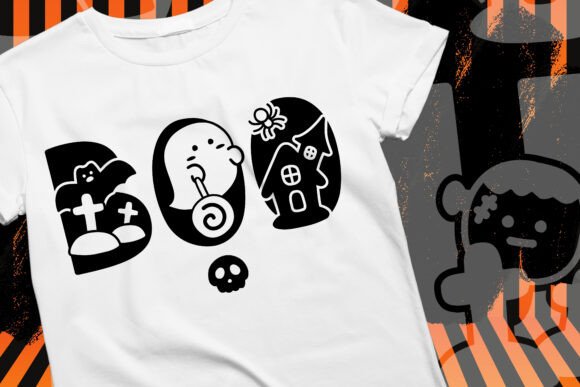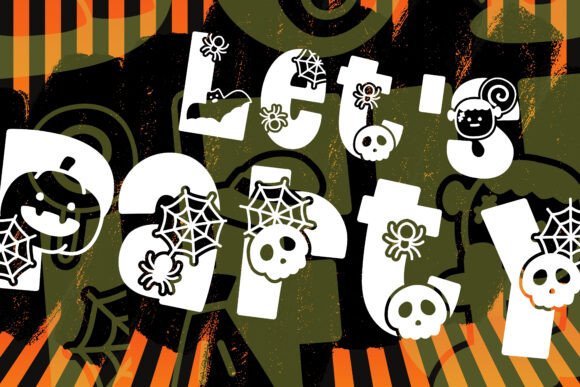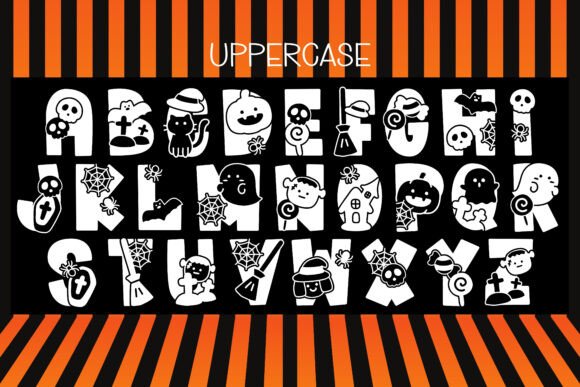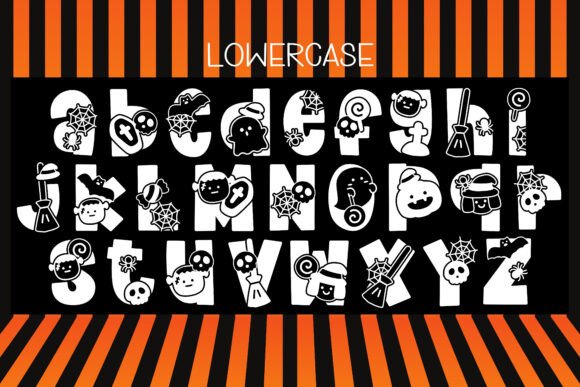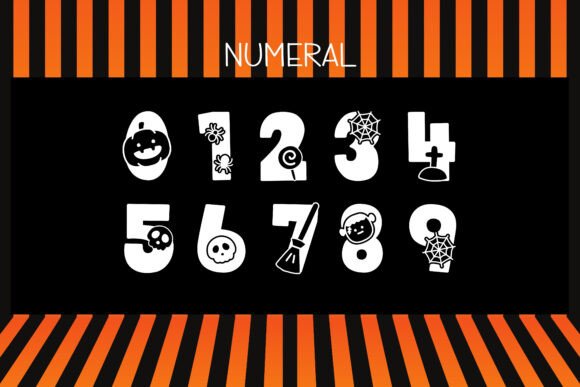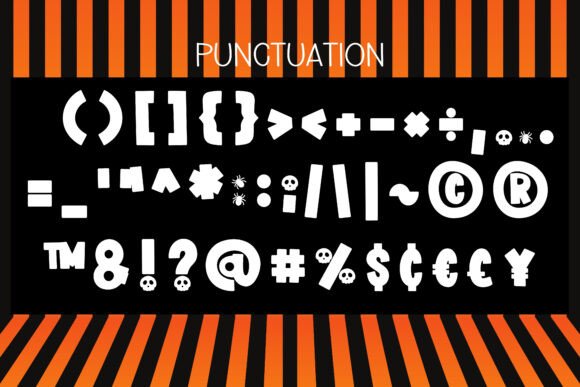
Introduction to Missy Witch Font
Have you ever been rummaging through your design resources, searching for the perfect font to add a touch of magic to your project? For designers, finding the right font can be a game-changer, and that’s where the adorable Missy Witch Font comes in. This enchanting font is designed to bring a spooky and playful vibe to your creative projects, making it perfect for back to school designs, Halloween party decorations, and more.
With its high-quality design and transparent background, the Missy Witch Font is a valuable addition to any designer’s toolkit. Whether you’re working on a free download project or a paid design, this font is sure to add a fun and creative touch. Let’s dive into the world of Missy Witch Font and explore its many possibilities.
Key Features of Missy Witch Font
- High-quality design: The Missy Witch Font is a well-crafted, unique design resource perfect for creative projects.
- Unique characteristics: The Missy Witch Font features a distinctive, whimsical style that adds a touch of magic to any creative project.
- Perfect for various projects: This font is ideal for use in branding, graphic design, digital art, and other creative endeavors.
Honest Review: Missy Witch Font
I recently stumbled upon the Missy Witch Font while searching for a free download to enhance my creative project. At first glance, I was drawn to its playful and whimsical feel, making it perfect for a design that needs a touch of magic.
- ✨ Unique and quirky character set, perfect for adding a touch of personality to any design
- ✨ High-quality font files, making it suitable for both digital and print projects
- ⚠️ Limited font sizes and styles available, which may not be ideal for more complex design projects
- ⚠️ Not as versatile as other fonts in terms of font pairing and usage
Overall, the Missy Witch Font is a fantastic design resource for those looking to add a playful and creative touch to their projects. While it may have its limitations, I would definitely recommend it for a fun and whimsical design project.
How to Use Missy Witch Font
To get the most out of the Missy Witch Font, experiment with different font sizes, colors, and combinations. You can also use it in conjunction with other design resources to create a unique and eye-catching design.
The Missy Witch Font is perfect for Halloween-themed designs, fairy-tale inspired projects, and other creative projects that require a touch of whimsy and magic. You can use it to create invitations, posters, social media graphics, and more.